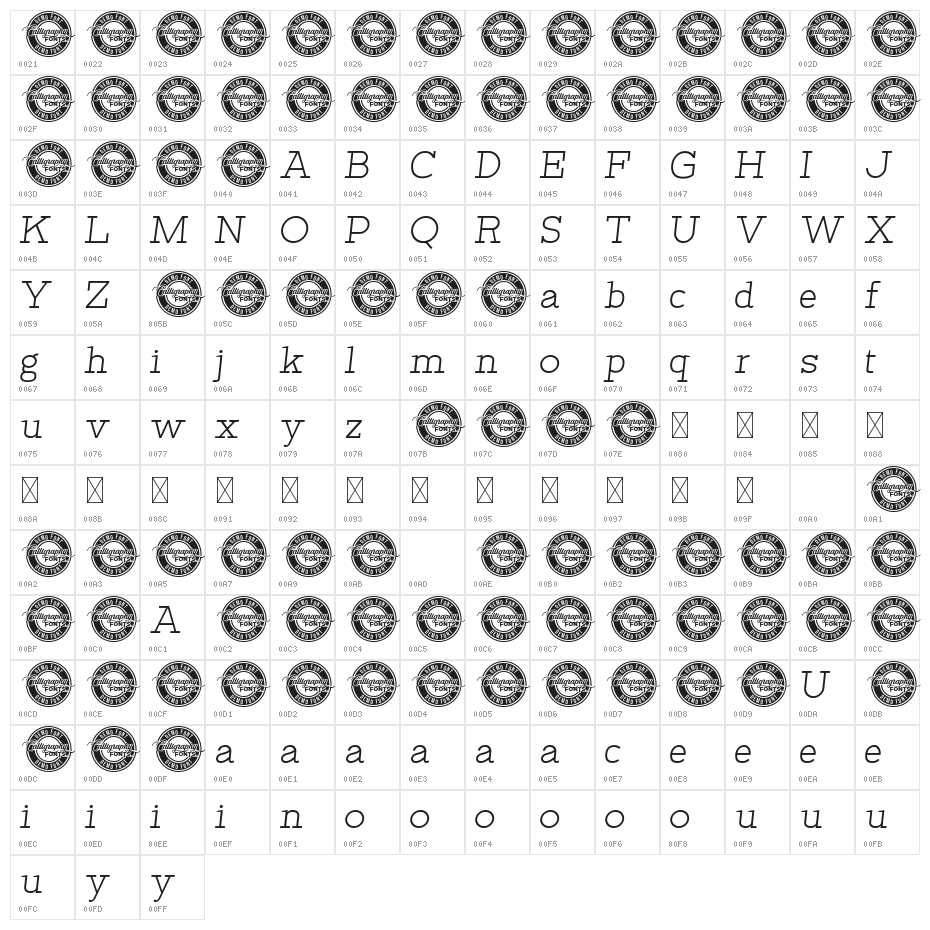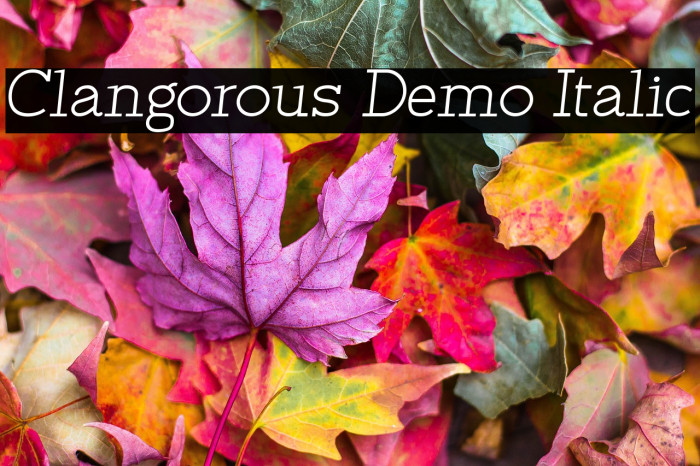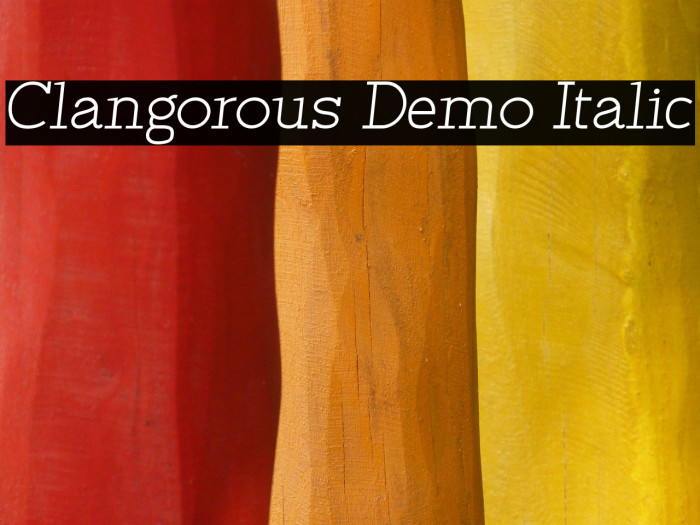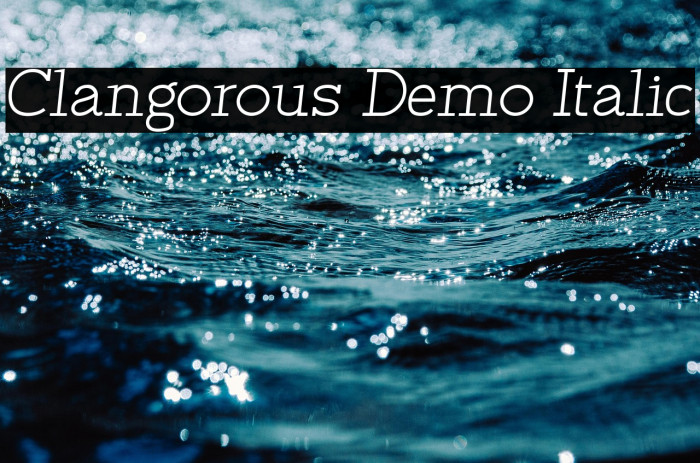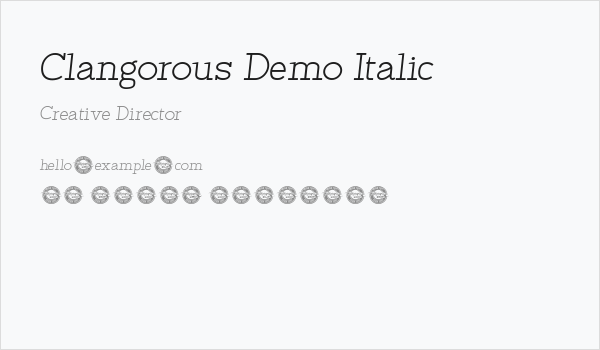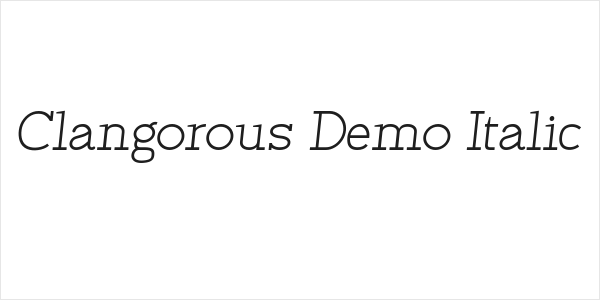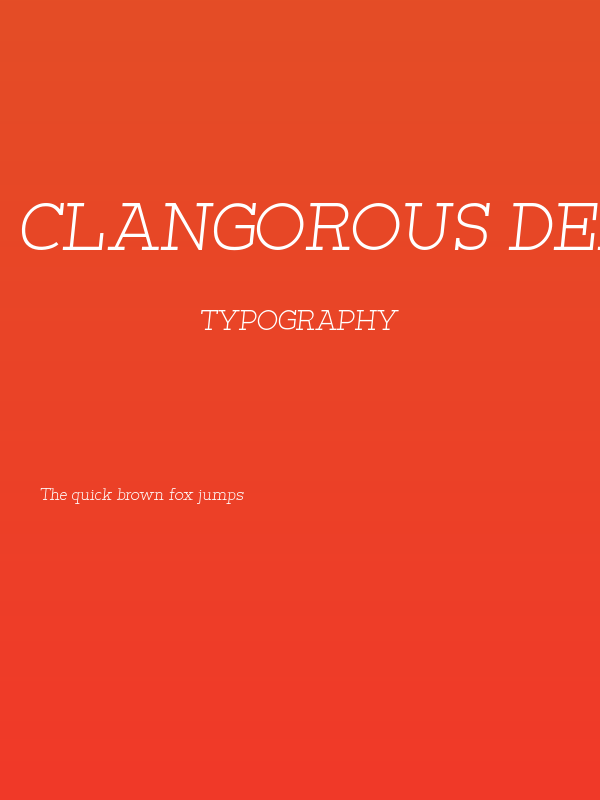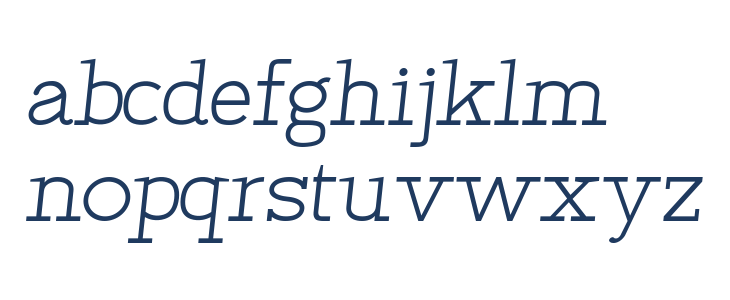
Clangorous Demo Italic Font
Clangorous Demo Italic Description
This font features a clean and elegant italic style with a slight slant, giving it a sophisticated and dynamic appearance. The characters are well-defined with a consistent stroke width, providing a balanced and harmonious look. The uppercase and lowercase letters are distinct, with a smooth flow that enhances readability. The numerals are clear and proportional, complementing the overall design. The special characters are thoughtfully integrated, maintaining the font's cohesive aesthetic. This font is versatile, suitable for both digital and print media, and can be used to add a touch of elegance to any project.
Overall StyleClassic